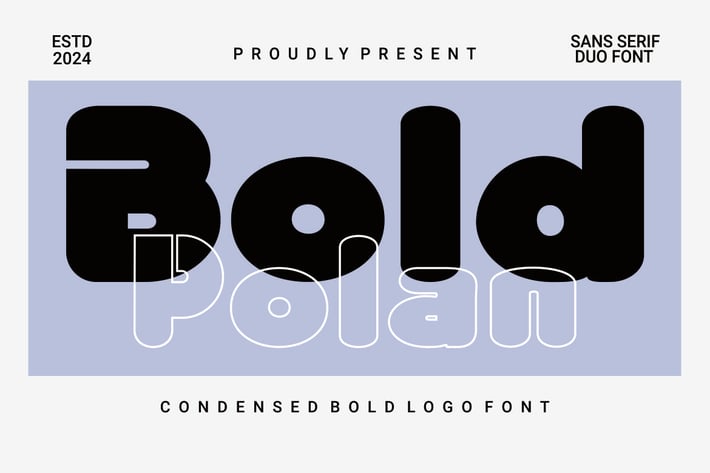
BoldPolan-Line - Bold Rounded Condensed Font
Proudly present our new product BoldPolan-Line - Bold Rounded Condensed Font
is a modern and authentic font. Perfect for professional needs and product branding, this font is suitable for any branding project such as quotes, logos, blog headers, posters, ribbons, letters, invitations, stationery, etc... Designed to be versatile and flexible that can be used on a variety of projects and media. extraordinary in a variety of contexts.